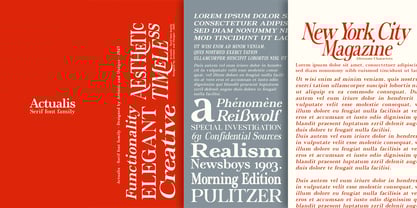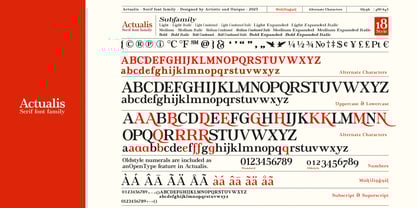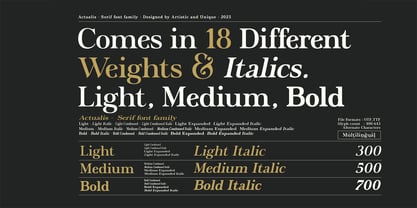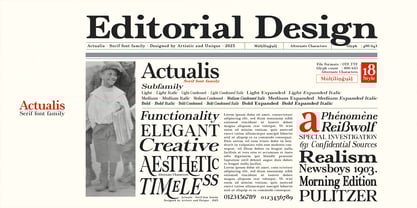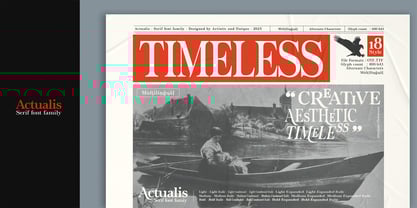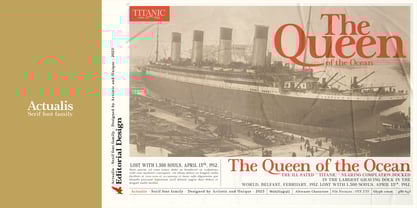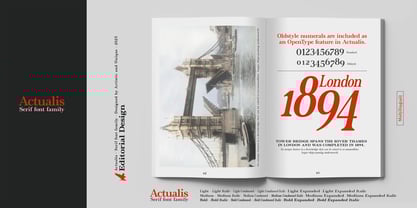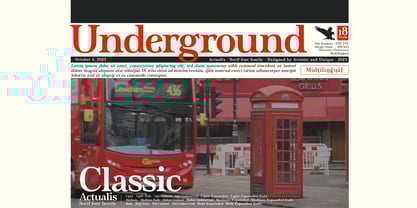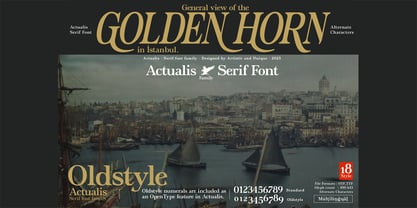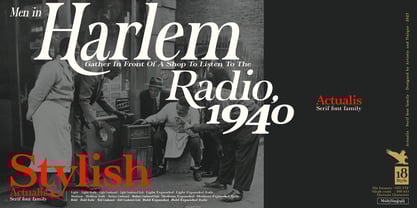
Actualis
The Actualis Font Family was designed by Osman Taner Kucukgenc and published by Artisticandunique. Actualis contains 18 styles and family package options. More about this family
Actualis - Serif Font Family - 18 Styles - Multilingual Support. While Actualis Serif font may look like a classic serif font, its modern nuances make it a sophisticated style that meets today's needs and perfectly suits a variety of design projects. With eighteen different styles and comprehensive multilingual support, this font enriches your content with unique character options. Actualis is perfect for a variety of applications, from editorial to branding and web design. Whether creating editorial work or creating unique brand identities, designers will find the flexibility to create impressive typographic compositions in Actualis. Known for its elegant appearance, this serif font is particularly suitable for editorial use and brand and product design projects that require a touch of elegance. Key Features: - 18 Different Styles - Offers a wide range of creative options. - Rich Glyph Options - Includes a variety of characters. - Subscript/Superscript/Symbols - Simplifies complex typographic needs. - Style Alternatives - Enhances visual appeal with unique variations. - Multilingual Support - Easily integrates with various languages. - Perfect for Versatile Design Use - Ideal for branding and editorial projects. Enjoy!
Technologies can change and evolve. However, no matter how much the production environments change, good typography created with the principles of creative and correct use of fonts will not change. Osman Taner Küçükgenç is an Istanbul based designer with a background in graphic design and advertising. He created his personal brand, Artistic and Unique, in order to create quality digital content. He spent years designing typography and typefaces, which are an important part of his academic education and therefore his profession. Fonts are an important tool in all visual communication. While designing the typeface to be unique, having a story behind it gives it character. It is intended to design this tool in the best and most functional way for the user.